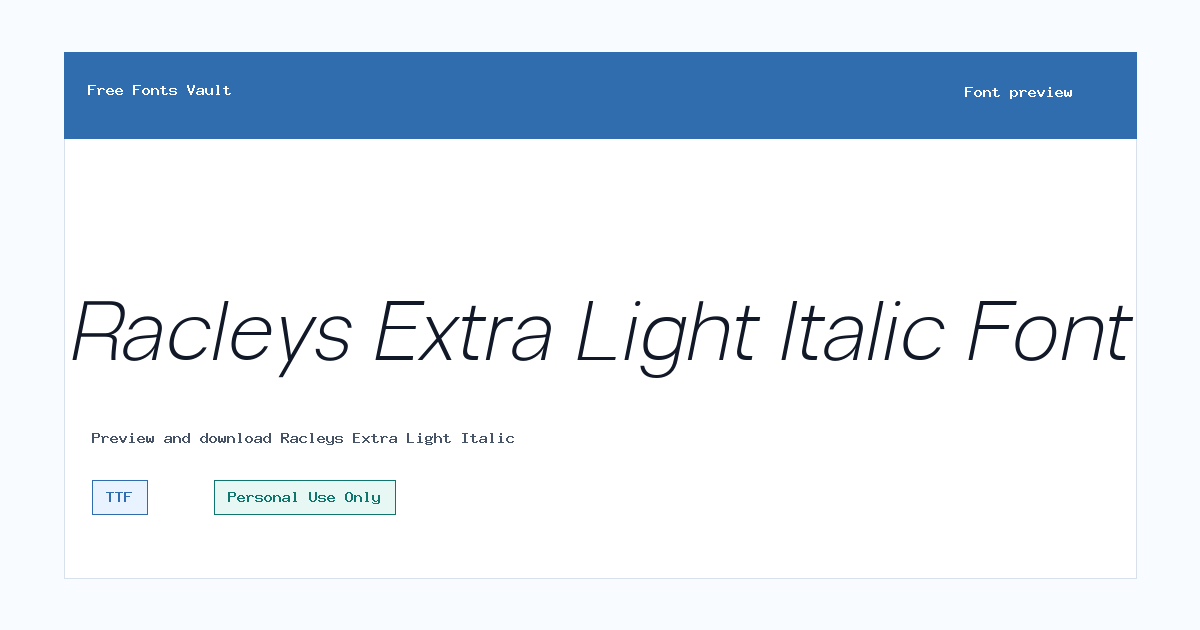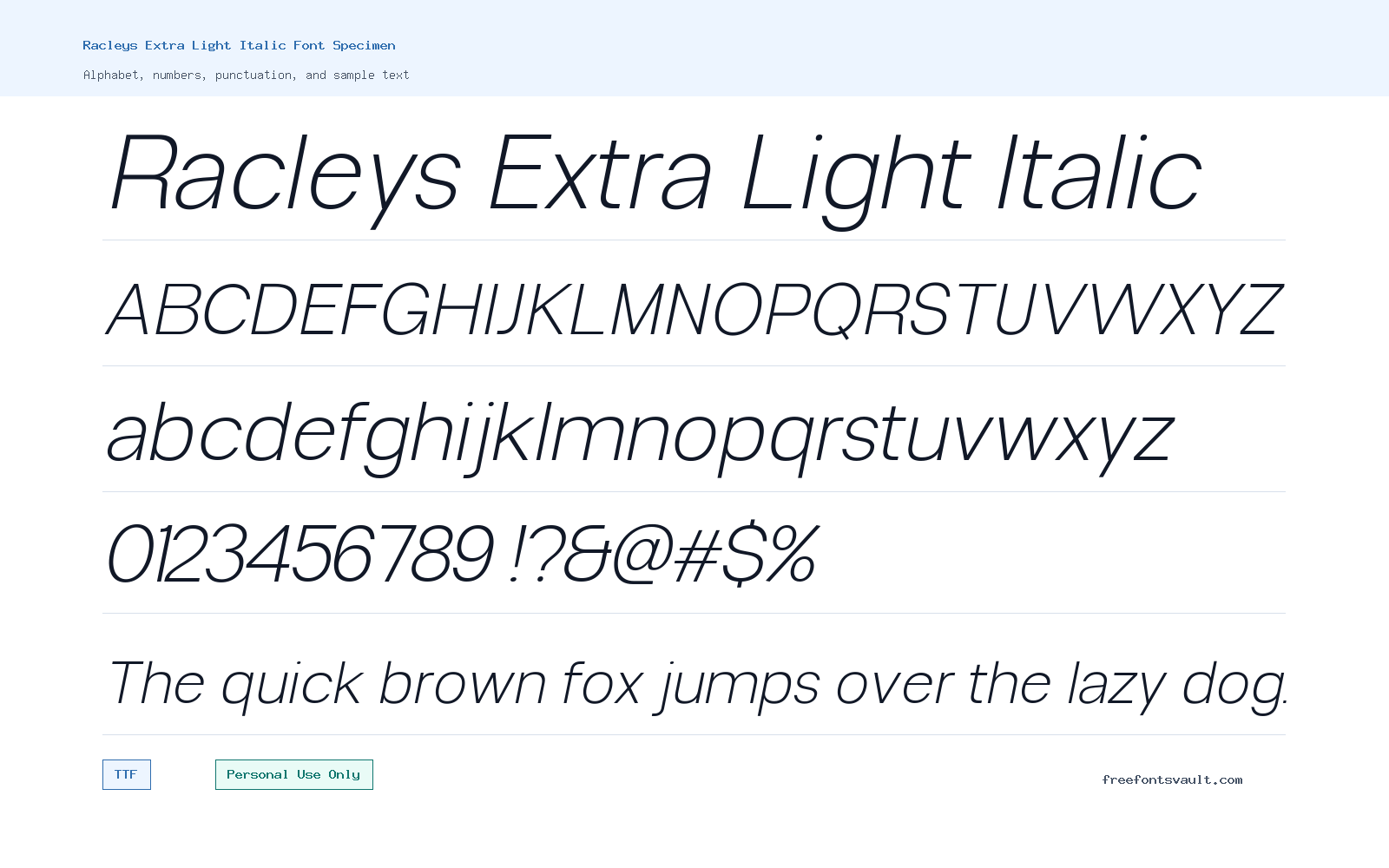
Racleys Extra Light Italic
Racleys Extra Light Italic font preview showing the family name
Racleys Extra Light Italic Font
Racleys Extra Light Italic font specimen showing alphabet, numbers, and sample text
Racleys Extra Light Italic font.
Racleys Extra Light Italic is a thin, slanted sans serif style with a clean, delicate look. It is best treated as a display font for personal projects, especially when you want text to feel light, refined, and gently expressive.
About Racleys Extra Light Italic
Racleys Extra Light Italic uses a very light weight with an italic angle, so its personality comes from subtle movement rather than heavy contrast. The thin strokes can give headings, nameplates, fashion-style layouts, quote graphics, and elegant poster text a calm modern feel. Because the file is an italic style at a light weight, it is not the best choice for dense paragraphs or small interface text. It works better when the words have room to breathe and the reader can appreciate the slant and fine line quality.
• Extra light italic sans serif style with a fine, slanted appearance
• Works best at display sizes where the thin strokes remain clear
• Useful for personal-use mockups, title treatments, social graphics, and poster lettering
• Pairs well with a more readable regular sans serif for supporting text
• Personal poster titles and quote graphics
• Elegant logo concept sketches and wordmark mockups
• Fashion, beauty, lifestyle, or portfolio-style design drafts
• Website hero text and landing page mockups
• Invitations, name cards, and minimal headline layouts
• Social media graphics where short text needs a light italic tone
Use Racleys Extra Light Italic for short text rather than long reading sections. Test it in the preview with real words from your project, especially if the design will appear on mobile screens or over images. Increase letter spacing slightly if the letters feel tight, and avoid placing the font over detailed backgrounds unless there is enough contrast. For a balanced layout, combine it with a regular or medium-weight sans serif that can handle paragraphs, buttons, and captions.
What kind of font is Racleys Extra Light Italic?
It is a light italic TTF font with a thin, slanted sans serif look. It is better for display text than for long body copy.
What should I pair with Racleys Extra Light Italic?
Pair it with a simple regular sans serif for body text and small labels. The contrast between a delicate italic heading and a clearer supporting font helps readability.
Is this font good for paragraphs?
It is not ideal for long paragraphs because the extra light italic style can become harder to read at small sizes. Use it for headings, short phrases, and display text.